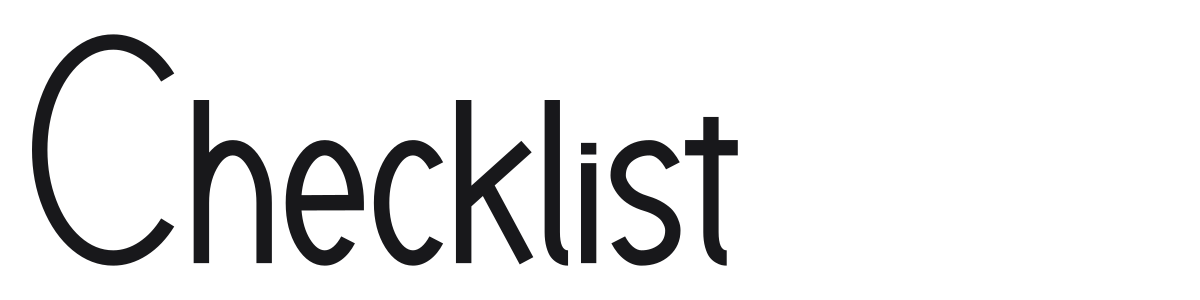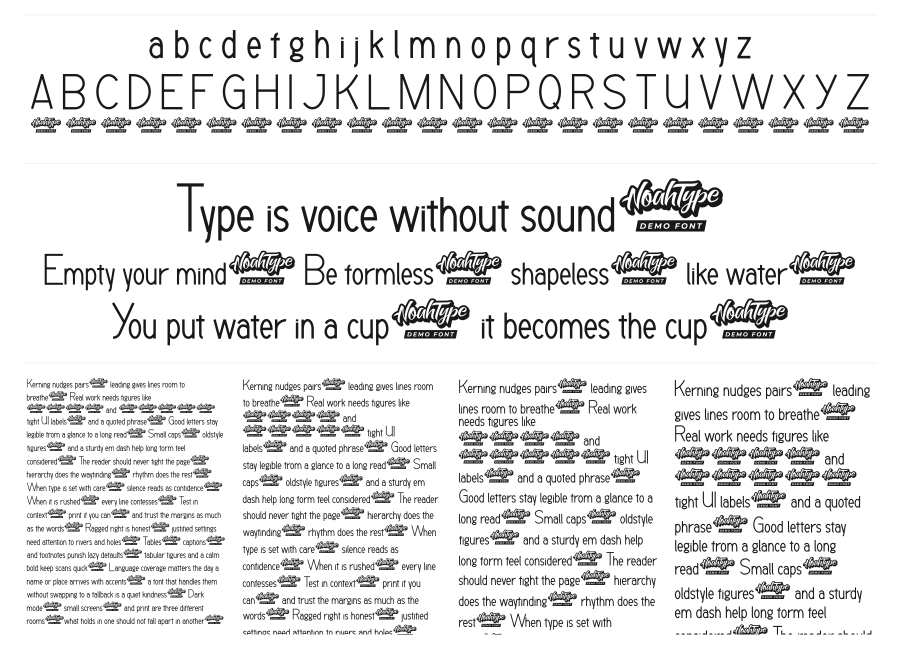
Checklist
Checklist is a condensed humanist sans-serif with tall, narrow proportions and a clean, near-monoweight stroke. Its characters blend geometric structure with organic softness, keeping it approachable where a stricter geometric face might feel cold. A solid choice for branding, packaging, and editorial headlines where space is tight but tone matters.